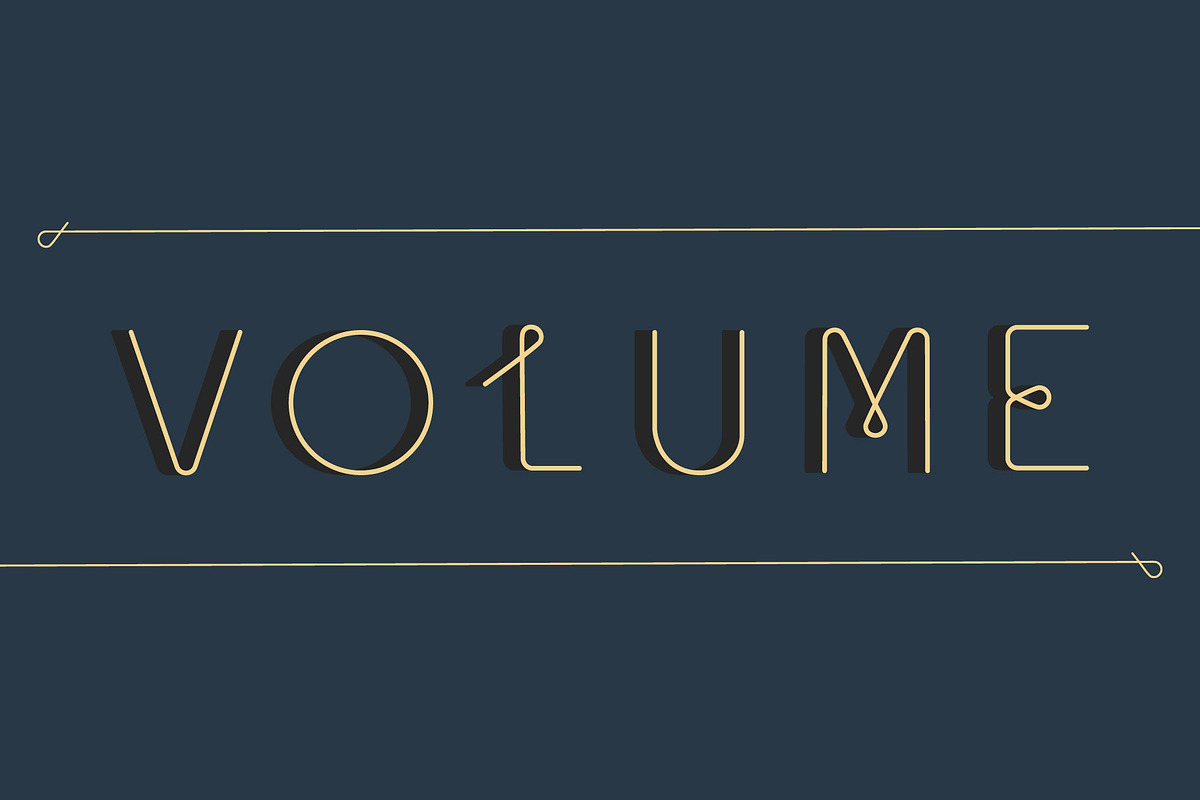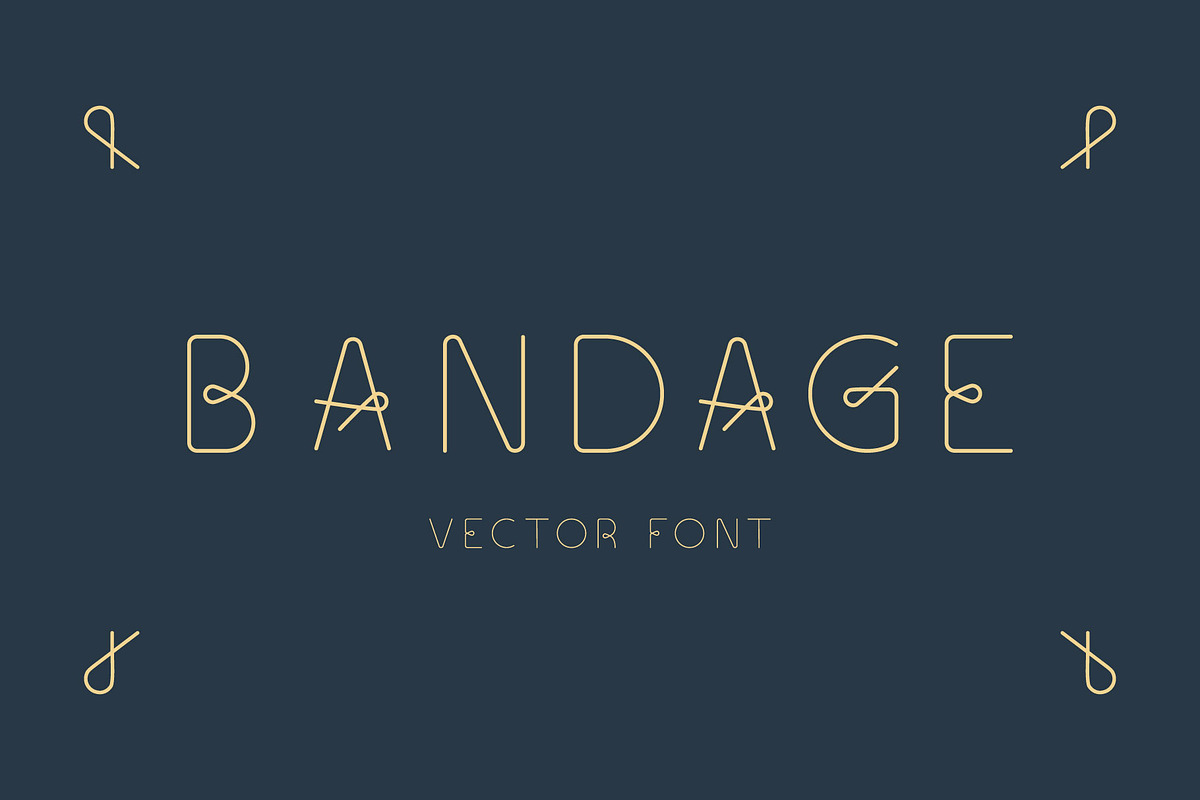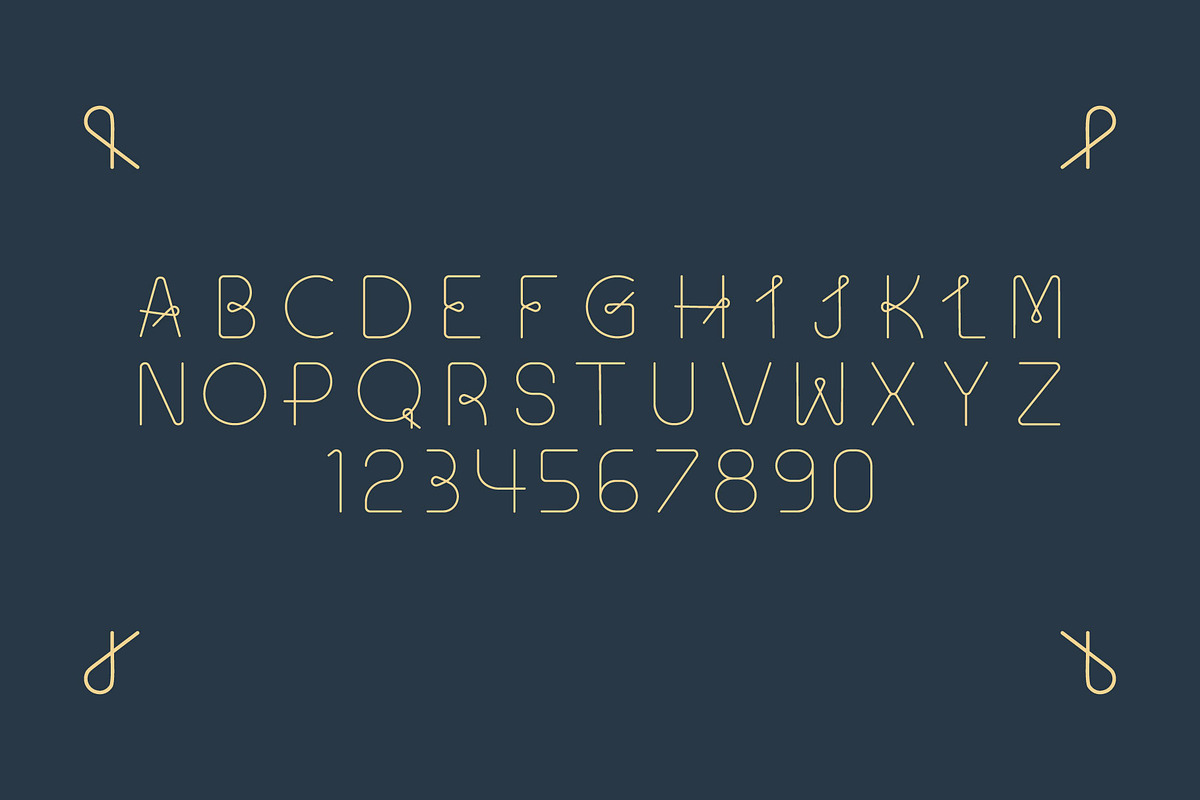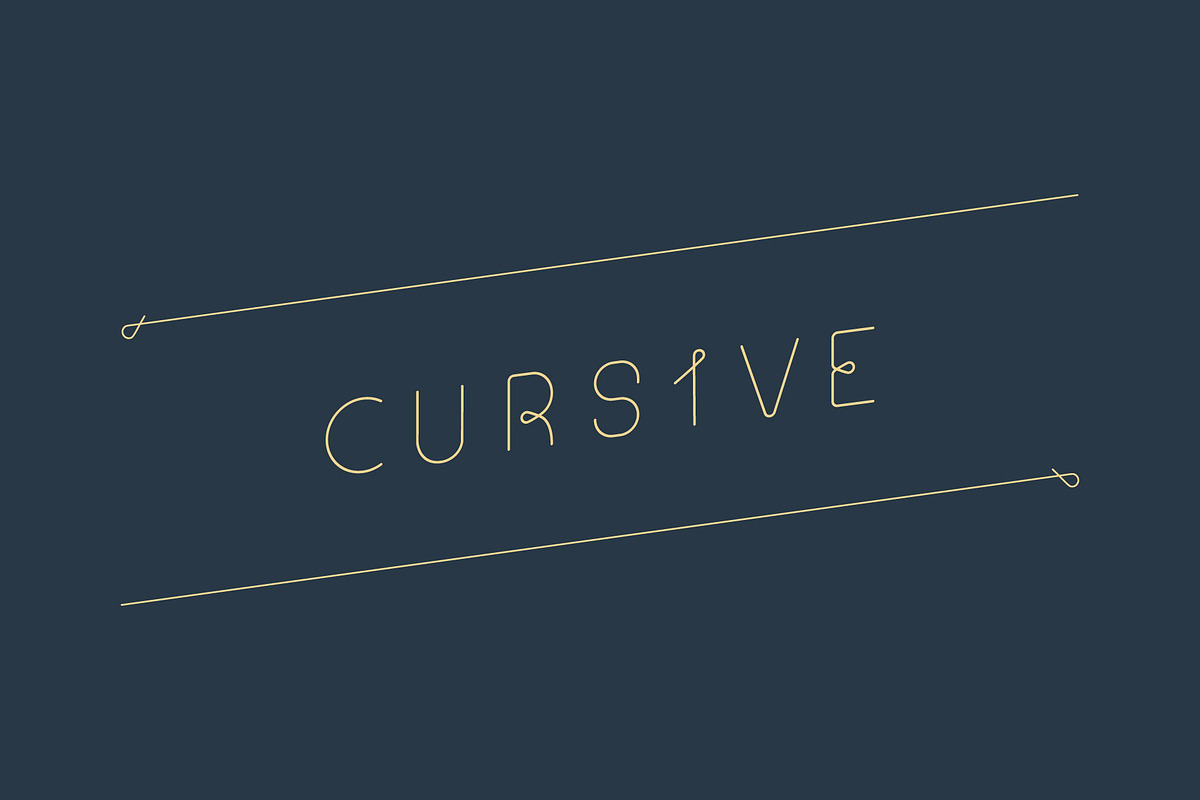
Vector Font. Bandage
Bandage – only vector modern, stylish and elegant typeface. The font is mainly made from a single line with periodic addition of loops to some design elements. Perfect for you artwork with any mood.
Bandage Font Variations
- Cursive
- Volume
- Uppercase Character
- Latin Letters